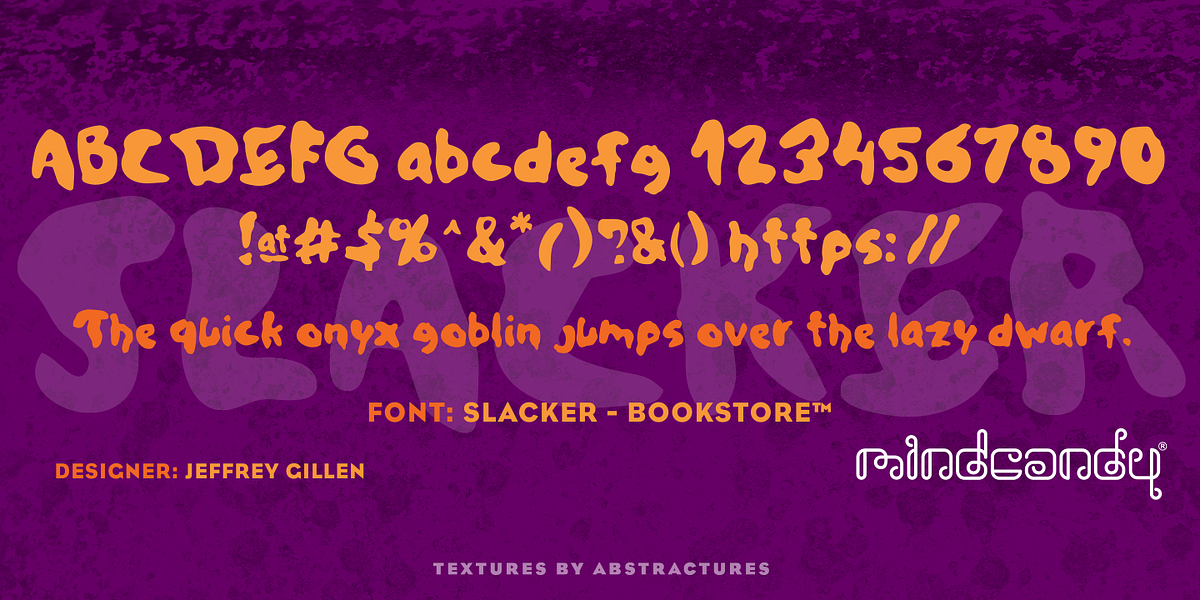
Slacker Store™
Slacker™ Bookstore is a hand-drawn font designed to evoke a personal, handwritten feel. Its thick and bold characters convey a casual and friendly vibe, making it suitable for invitations or headlines where a touch of personality is desired. The font includes alternate characters, such as a stylized peace sign bullet point, reflecting its origins in the 1990s Austin 'Slacker' subculture.